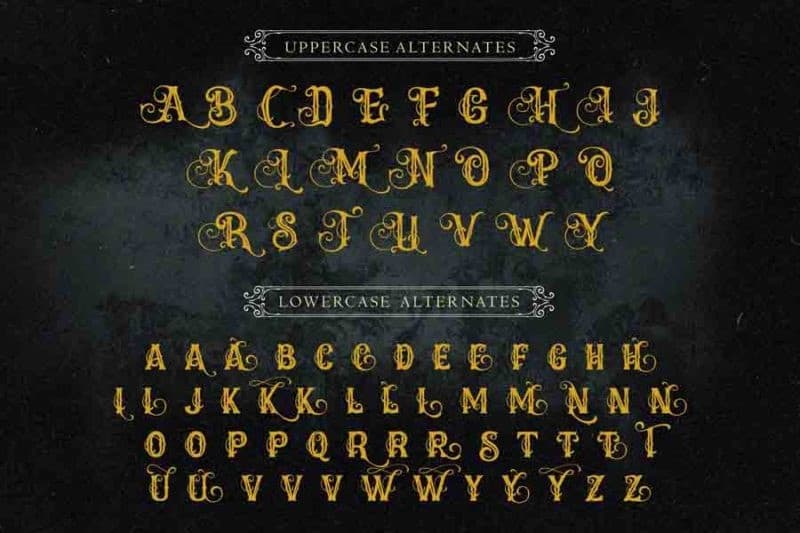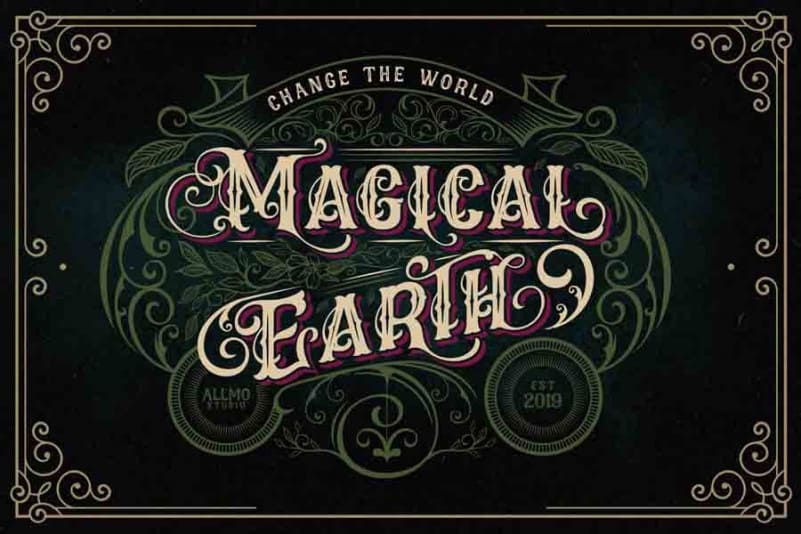
Castlefire Blackletter Font
Castlefire Blackletter Font is intended for those of you who like unique styles. It’s designed and shared by Allmo Studio. It comes with uppercase, lowercase, numerals, punctuations and so many variations on each characters include opentype alternates. This font is great for your creative project such as logos, posters, invitations cards, packaging, badges, logotype, apparel design and Label. Work well on both vintage and modern design.